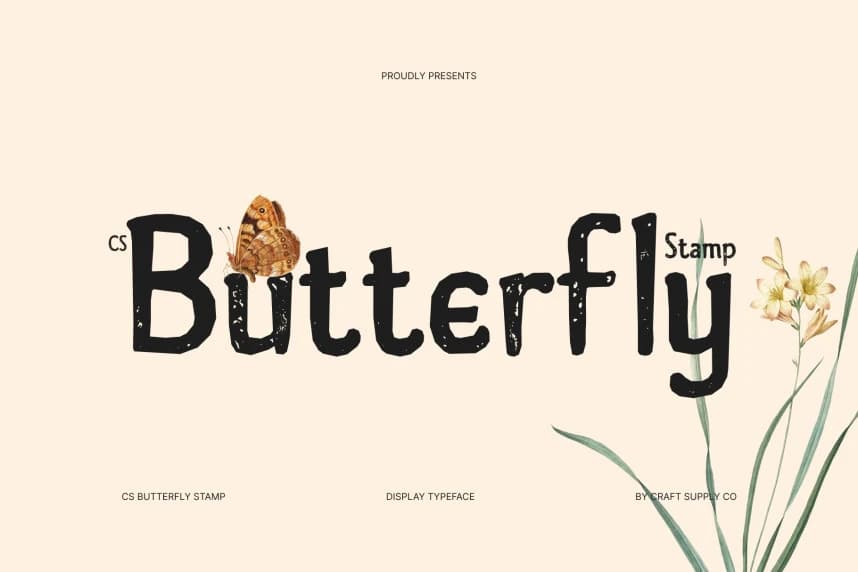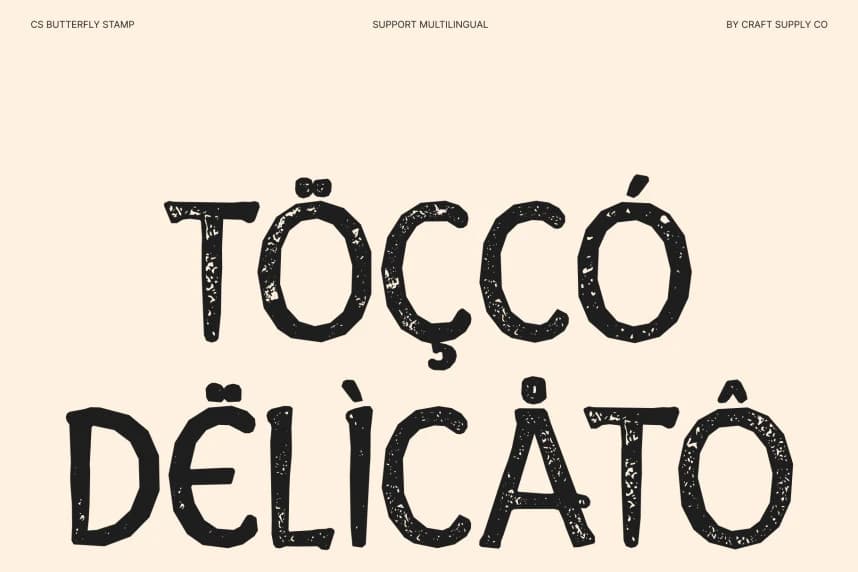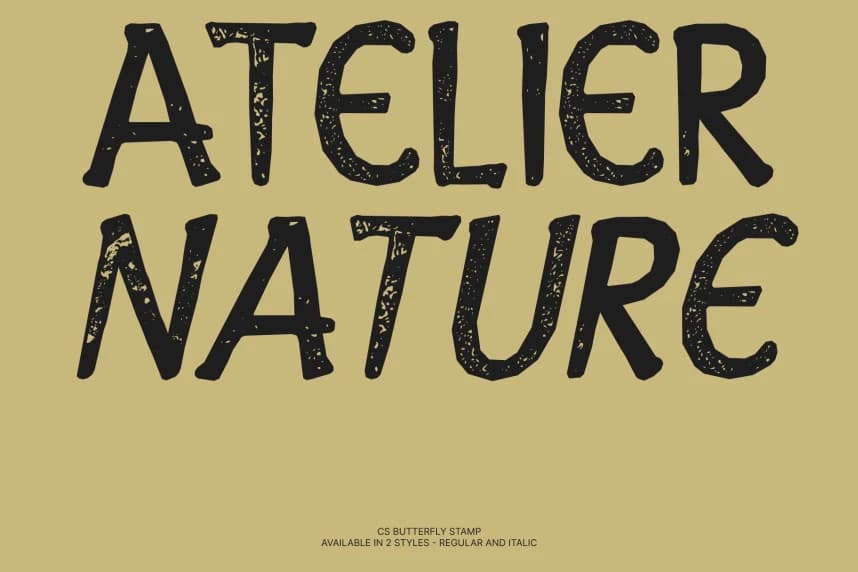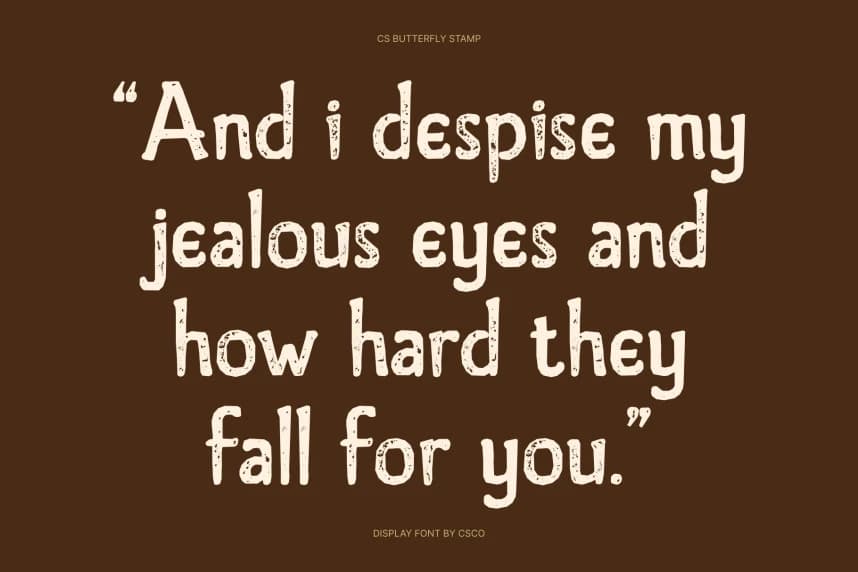
CS Butterfly Stamp Font
CS Butterfly Stamp Font – Greek-Inspired Vintage Display Font Timeless Greek Elegance with a Vintage Twist. This is a modern display font reimagined with a vintage stamp effect. Its Greek-inspired letterforms are softened with rounded shapes